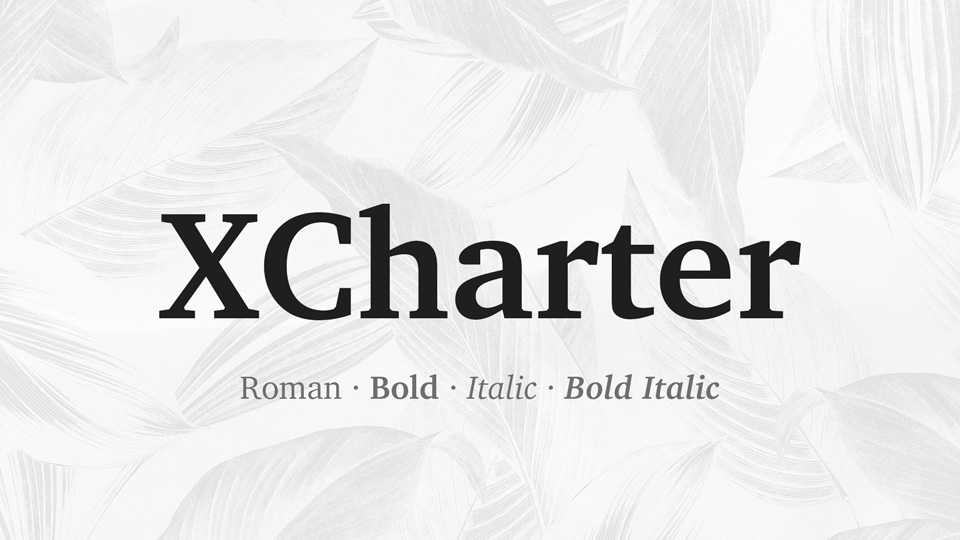
Download The XCharter typeface, a serif font family in two weights, Italic and Slanted styles, XCharter is an extensions of the Charter fonts, adding oldstyle figures, superior figures and small caps in all styles.
Designer: Michael Sharpe